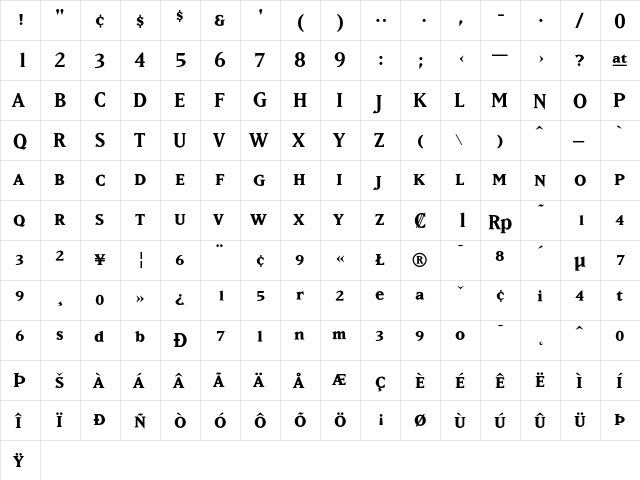
MatrixBoldSmallCaps Regular
Design Context for MatrixBoldSmallCaps Typeface
MatrixBoldSmallCaps takes a measured approach to typography — its balanced proportions and neutral character make it a reliable workhorse for both digital and print work. The heavy weight commands attention and anchors typographic hierarchies.